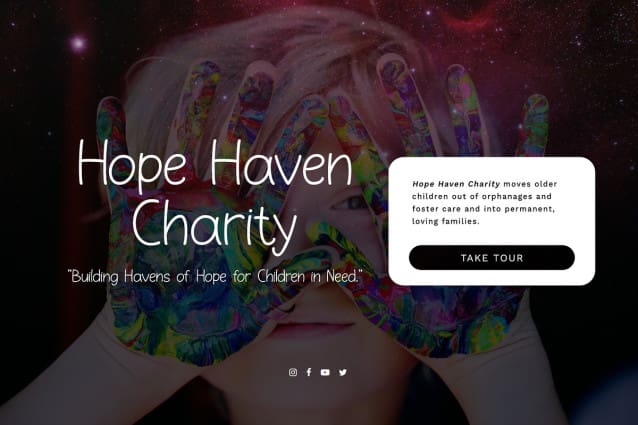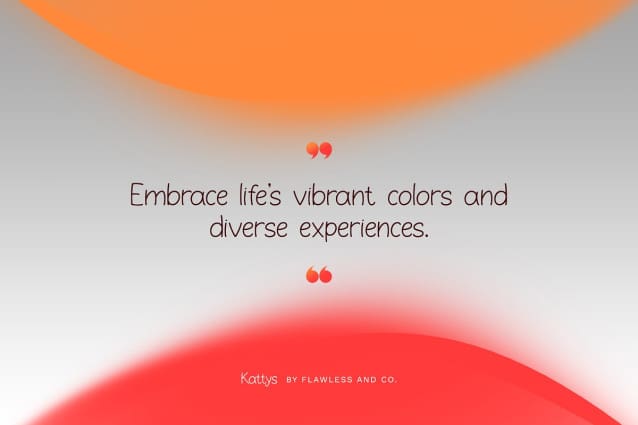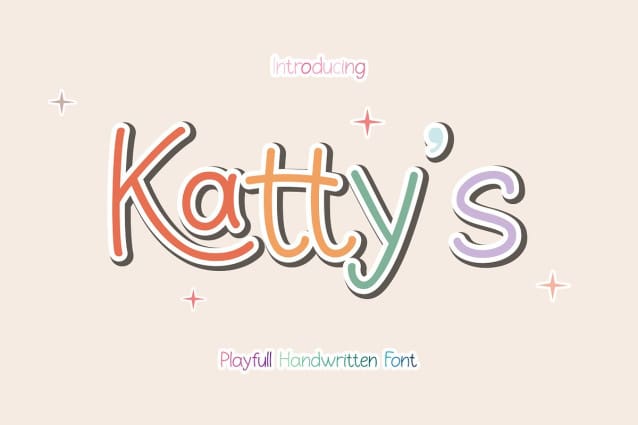
Kattys Playful Handwritten Font
Kattys is a Playful handcrafted font, this style gives a feel of fun and Girly, modern, Suitable for any graphic designs such as branding materials,print, business cards, logo, poster, t-shirt, photography, quotes .etc